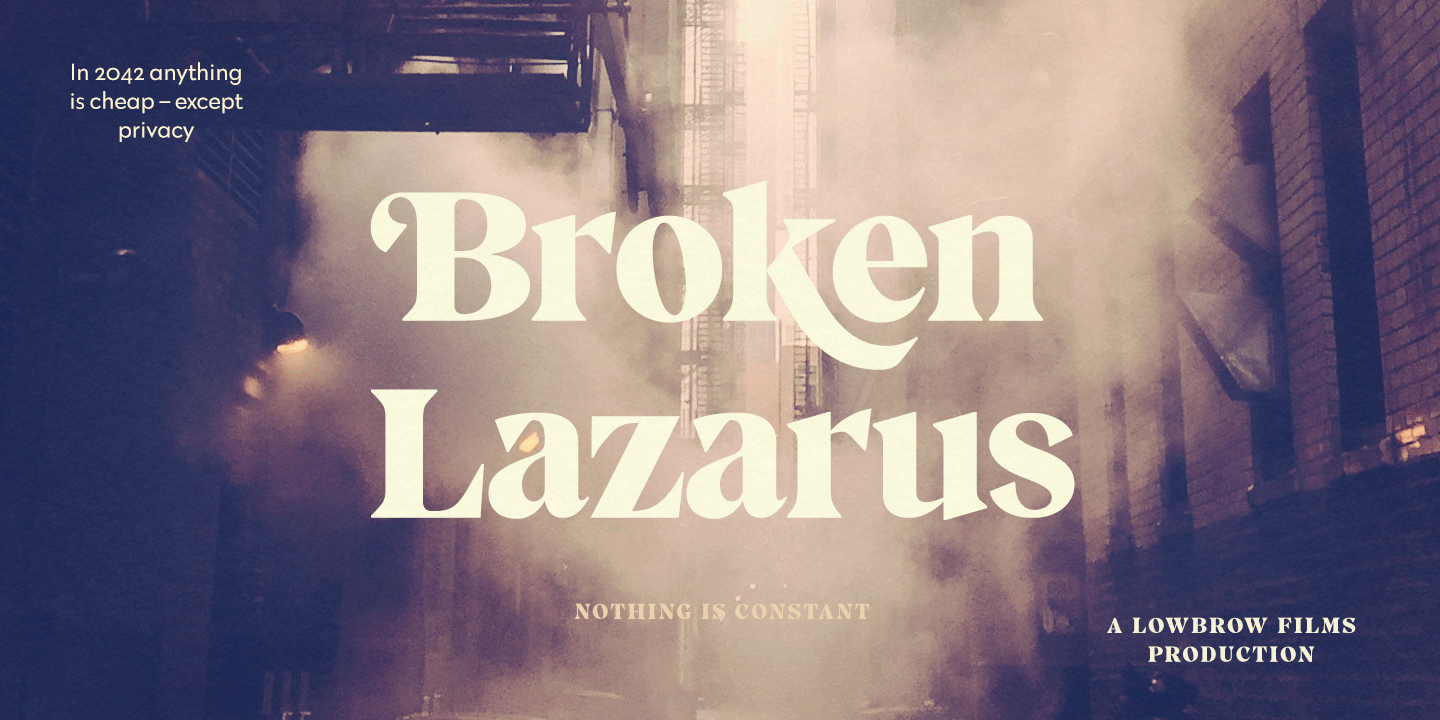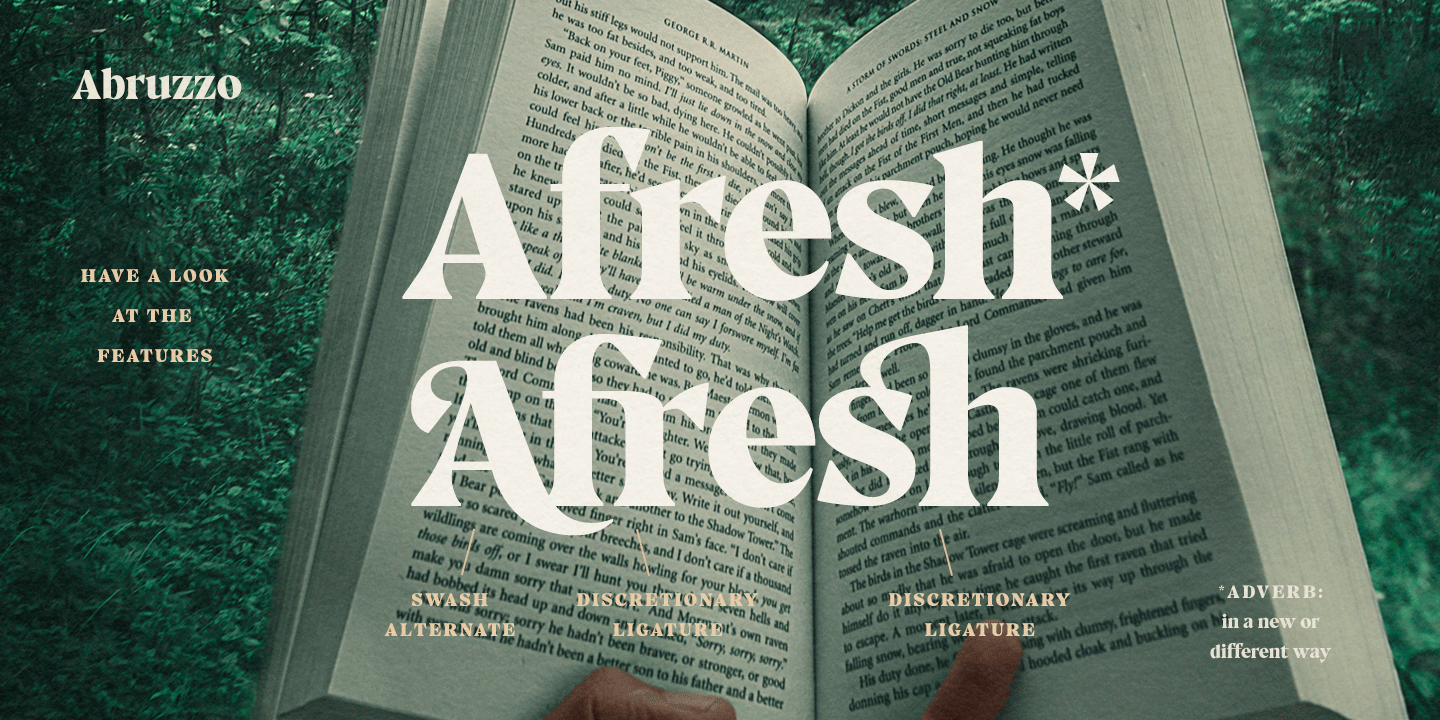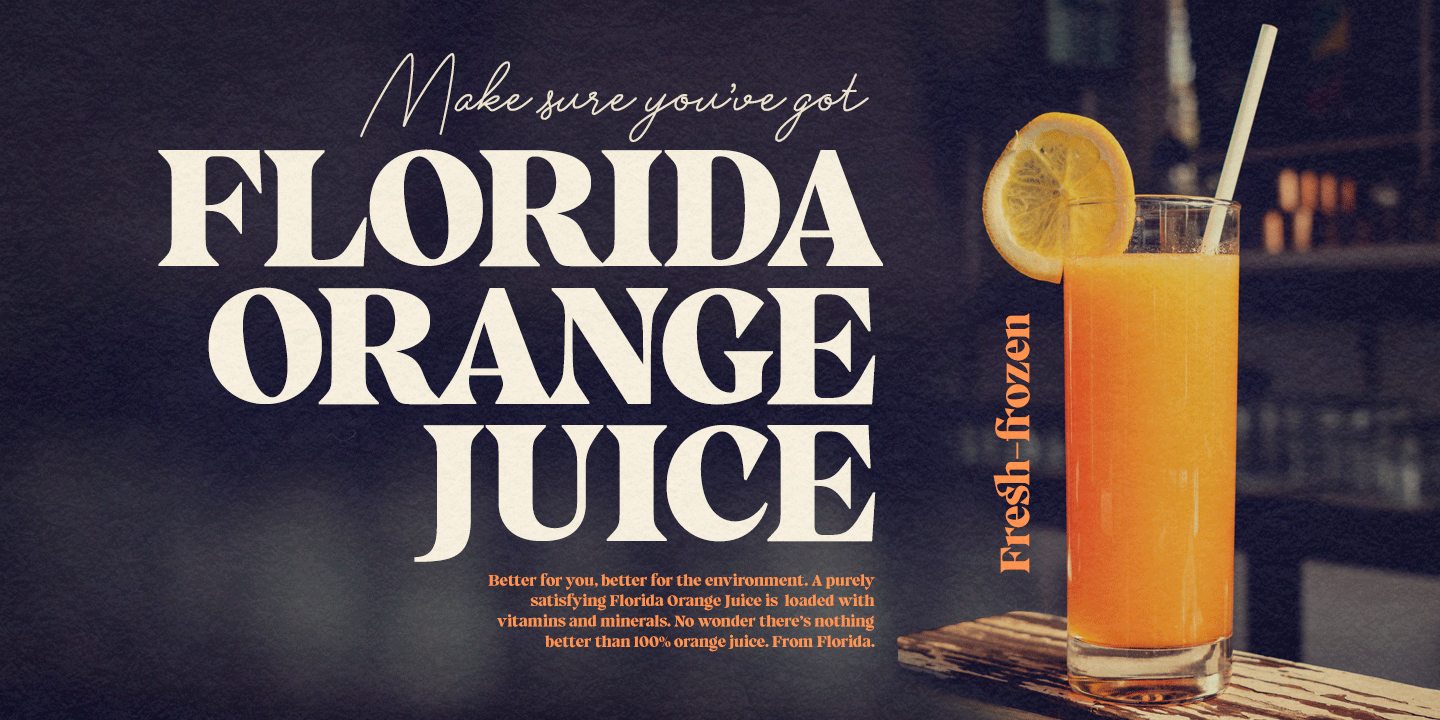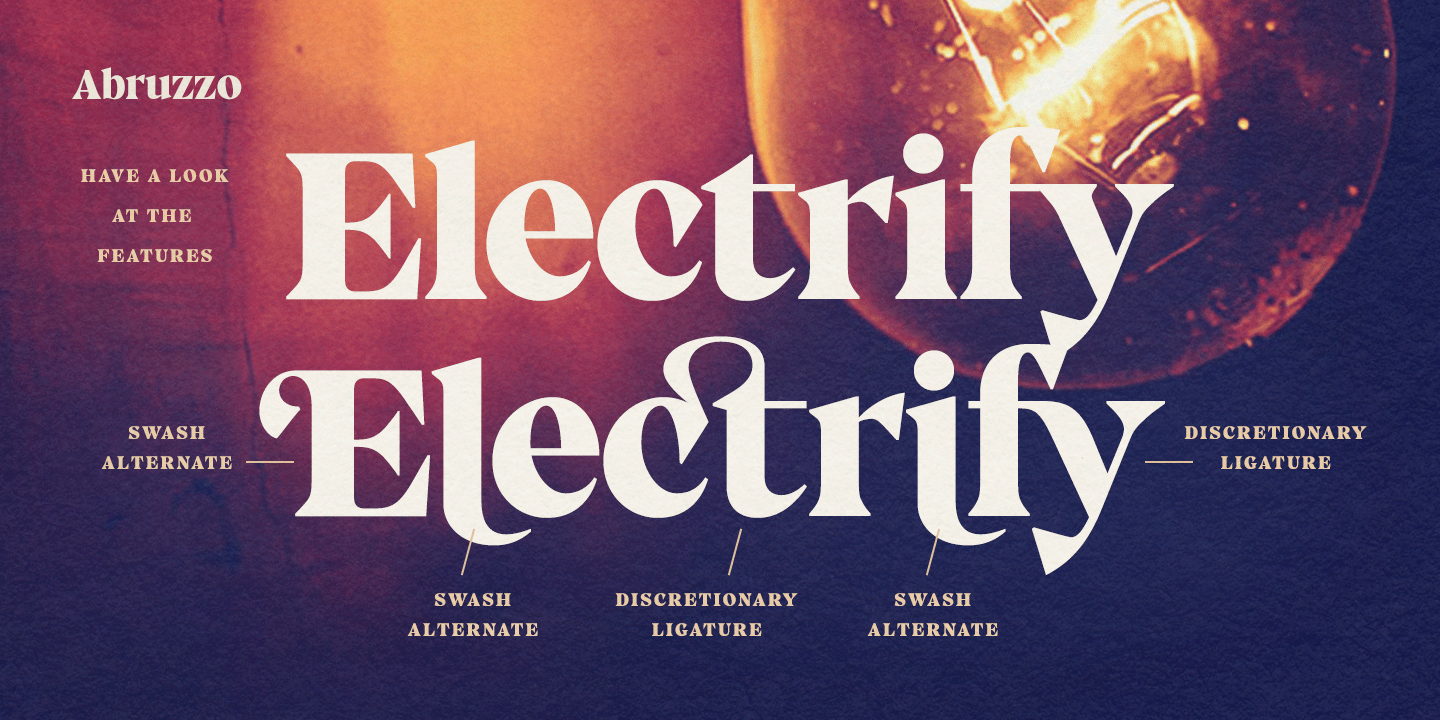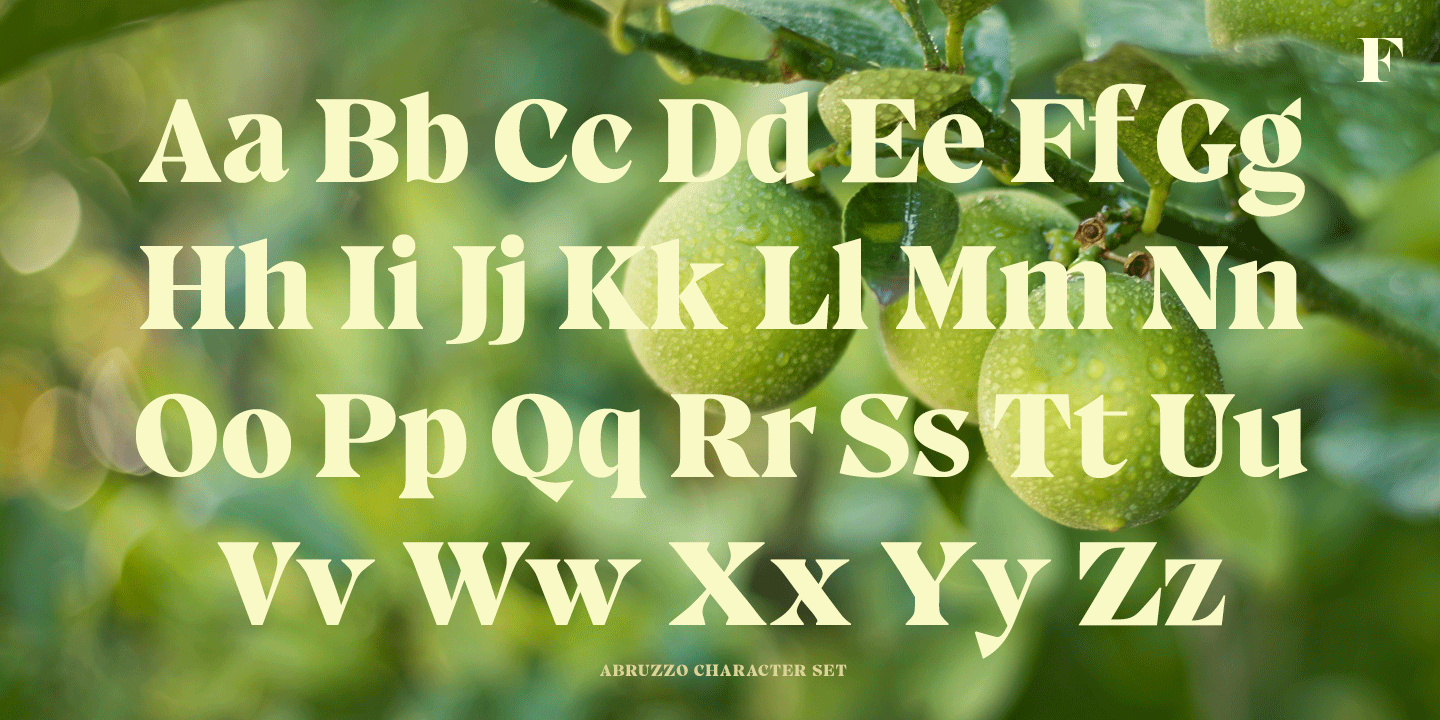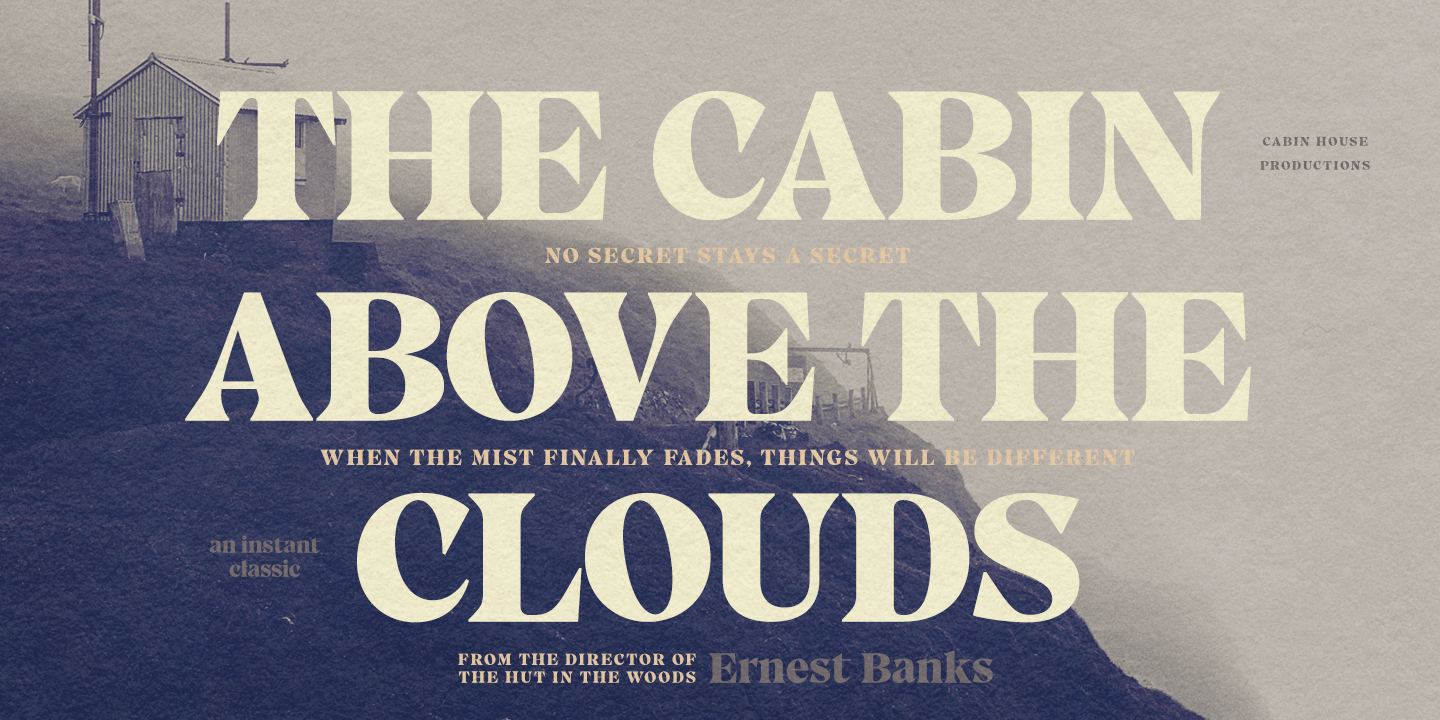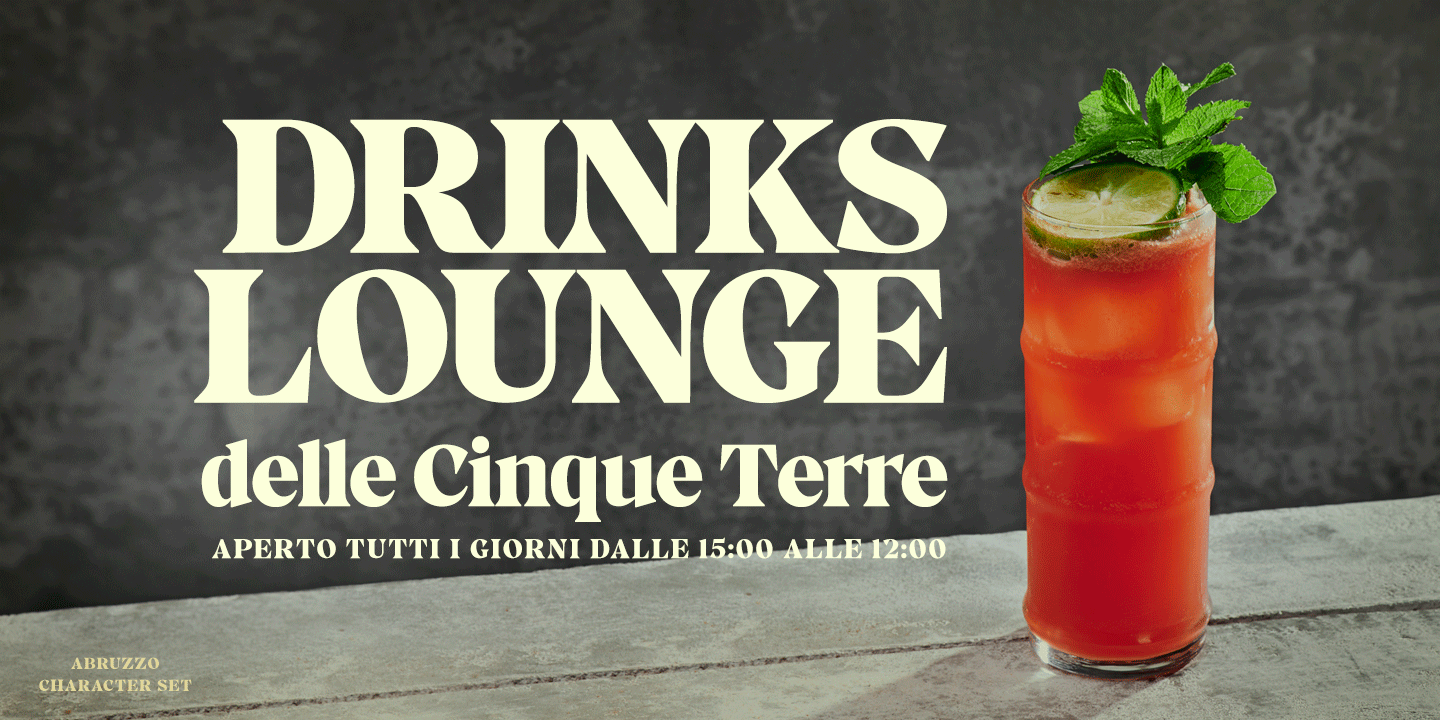
Forte e gentile, \’strong and kind? is the motto of Abruzzo region located in central Italy on the Adriatic coast. As the region it\’s named after, Abruzzo typeface is strong yet inviting with its sharp angular serifs and smooth transitions. Abruzzo is…